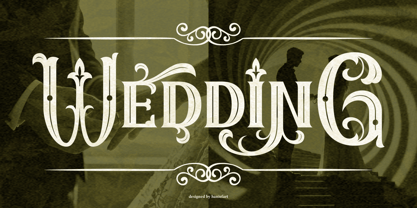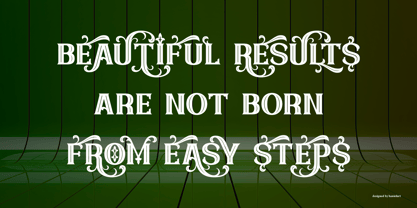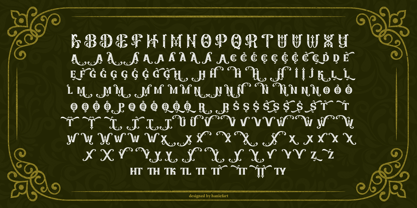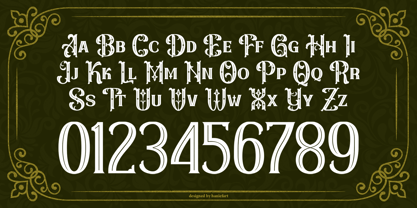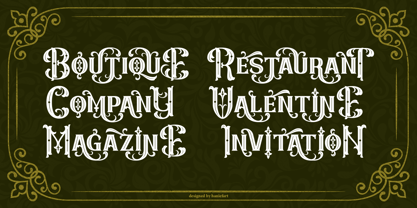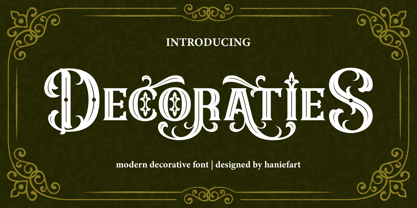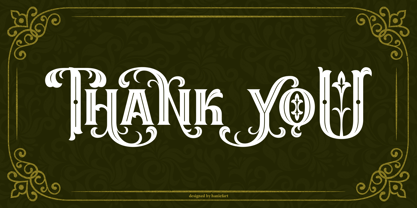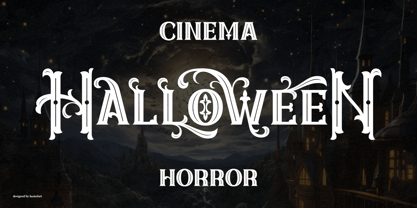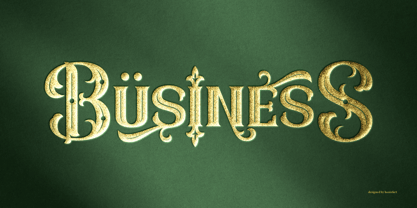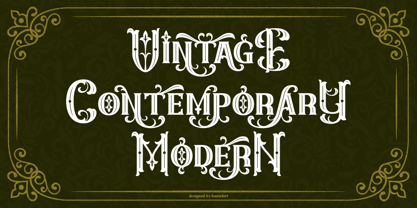
Decoraties
by Haniefart
The Decoraties Font Family was designed by Hanif Maulazi and published by Haniefart. Decoraties contains 1 styles. More about this family
Decoraties is a modern decorative font that effortlessly brings your designs to life. Serving as an artistic harmony between dynamic serifs and fresh touches, this contemporary typeface captivates with its fresh, modern appeal. Highly adaptable, this font is perfect for branding and company logos, as well as adorning movie titles, beverage labels, or magazine headlines. This font adds a charming charm to wedding invitations while also lending a casual, cool feel to t-shirts and much more. With Decoraties, you're not just using a font, you're enhancing your creative output with the perfect blend of style and elegance.
Designers: Hanif Maulazi
Foundry: Haniefart